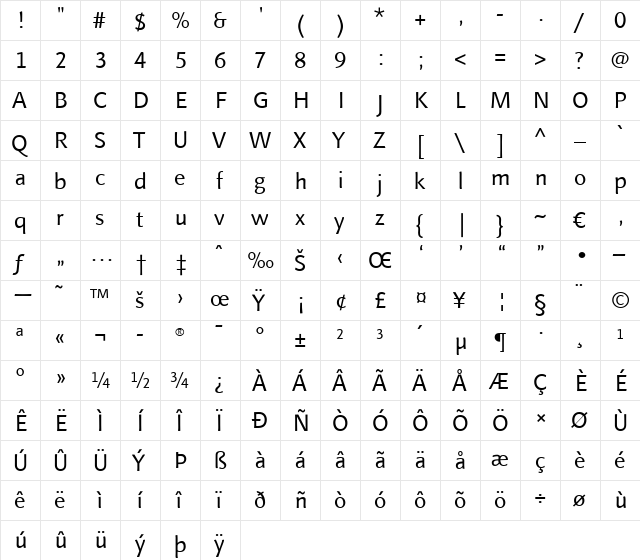
LTFinnegan Regular Regular
| Designer | Juergen Weltin |
Design Context for LTFinnegan Regular Typeface
LTFinnegan Regular is a composed and adaptable typeface that performs quietly and consistently across a wide range of design contexts.